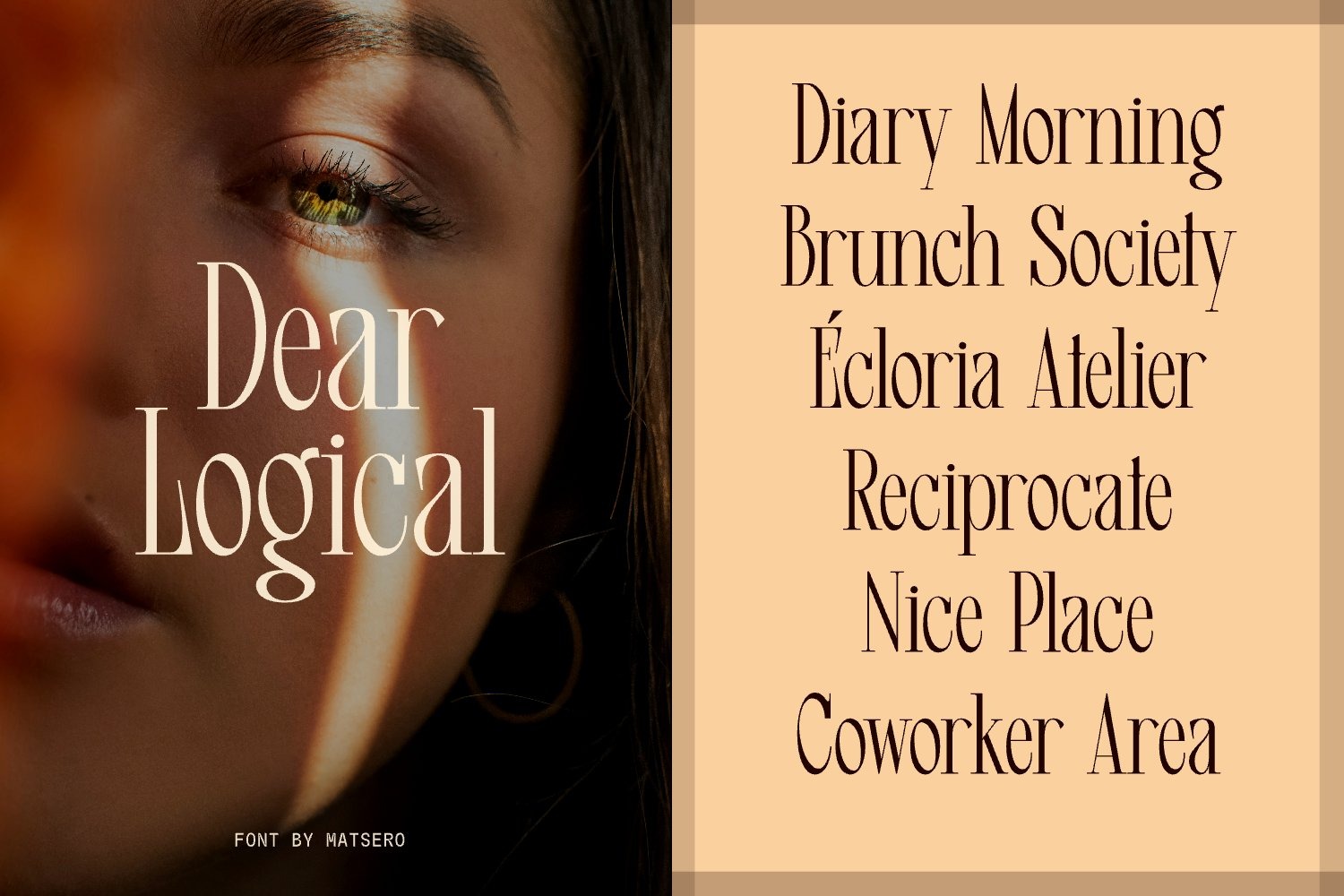
Dear Logical – Elegant Condensed Font
Dear Logical – Elegant Condensed Font is a premium-quality font developed to enhance your work with a polished, modern, and visually elevated look. Dear Logical is a is a condensed serif with high contrast strokes and tall, narrow letterforms. Its art nouveau influenced shapes work well for display sizes and give layouts a distinctive editorial character.
Uppercase and lowercase
Numerals, punctuation, symbols
Multilingual support